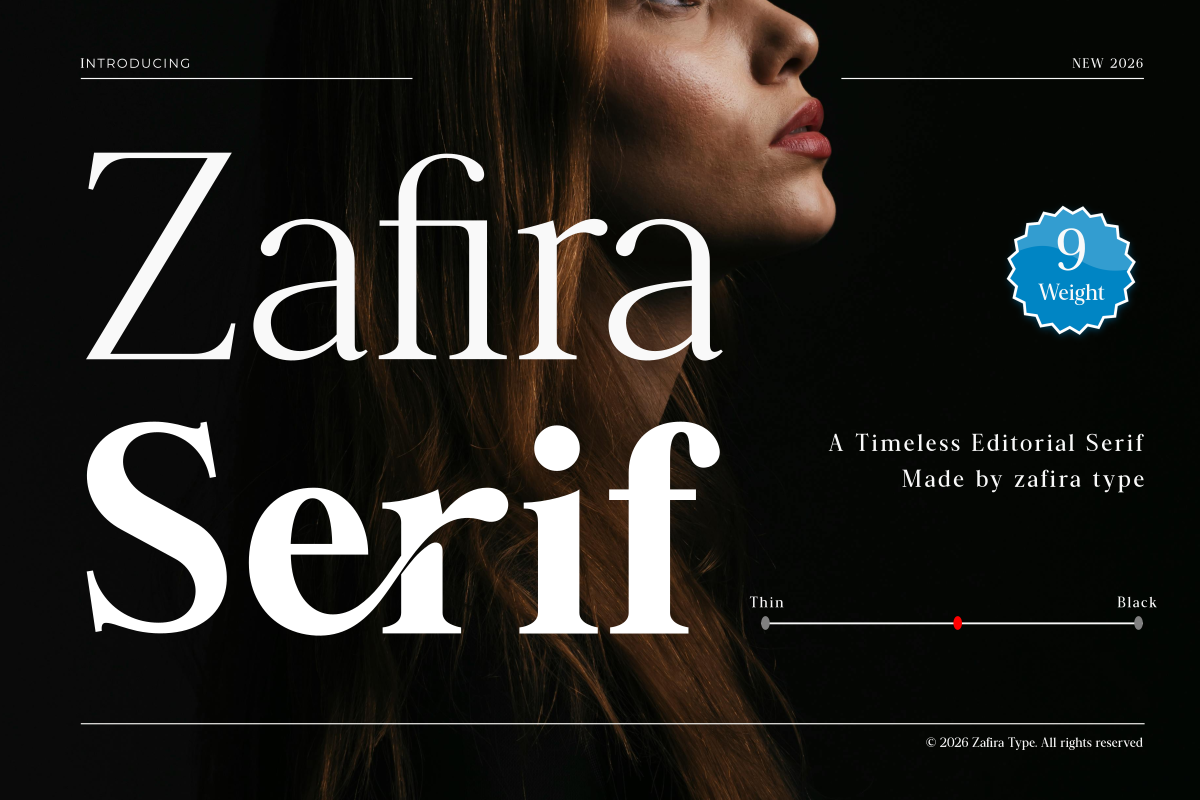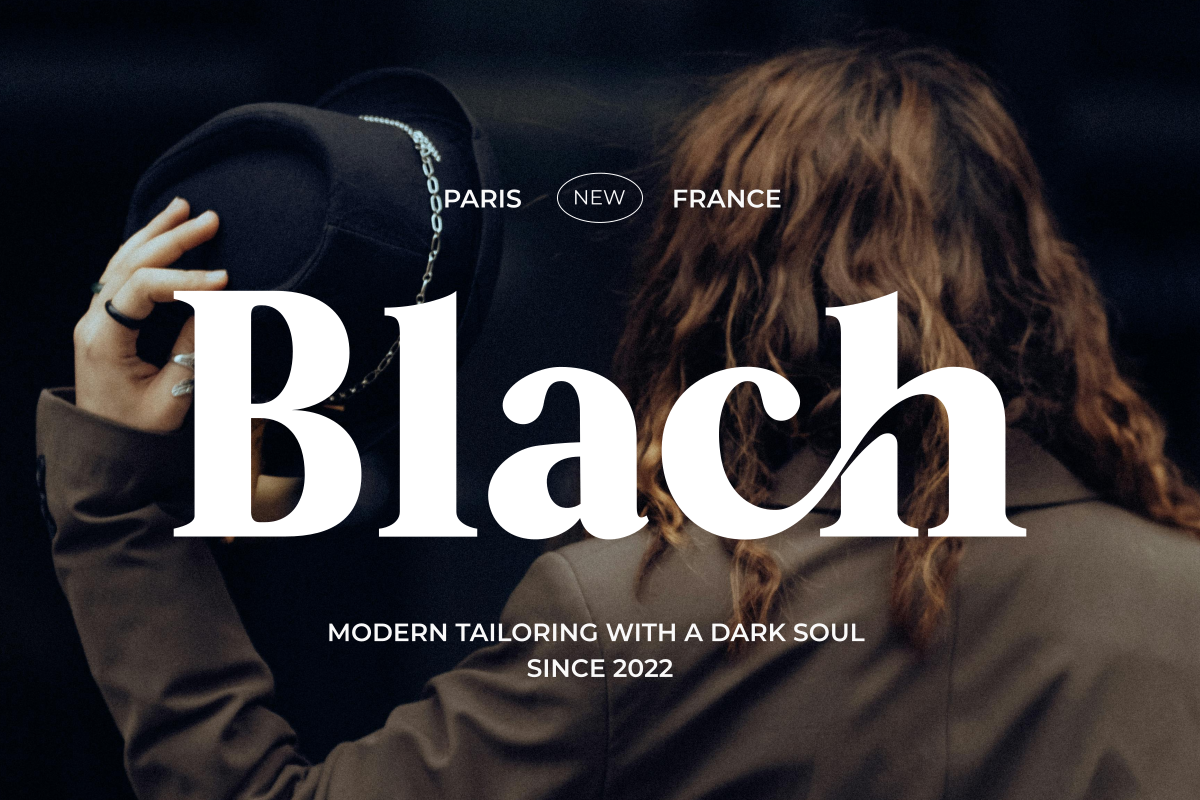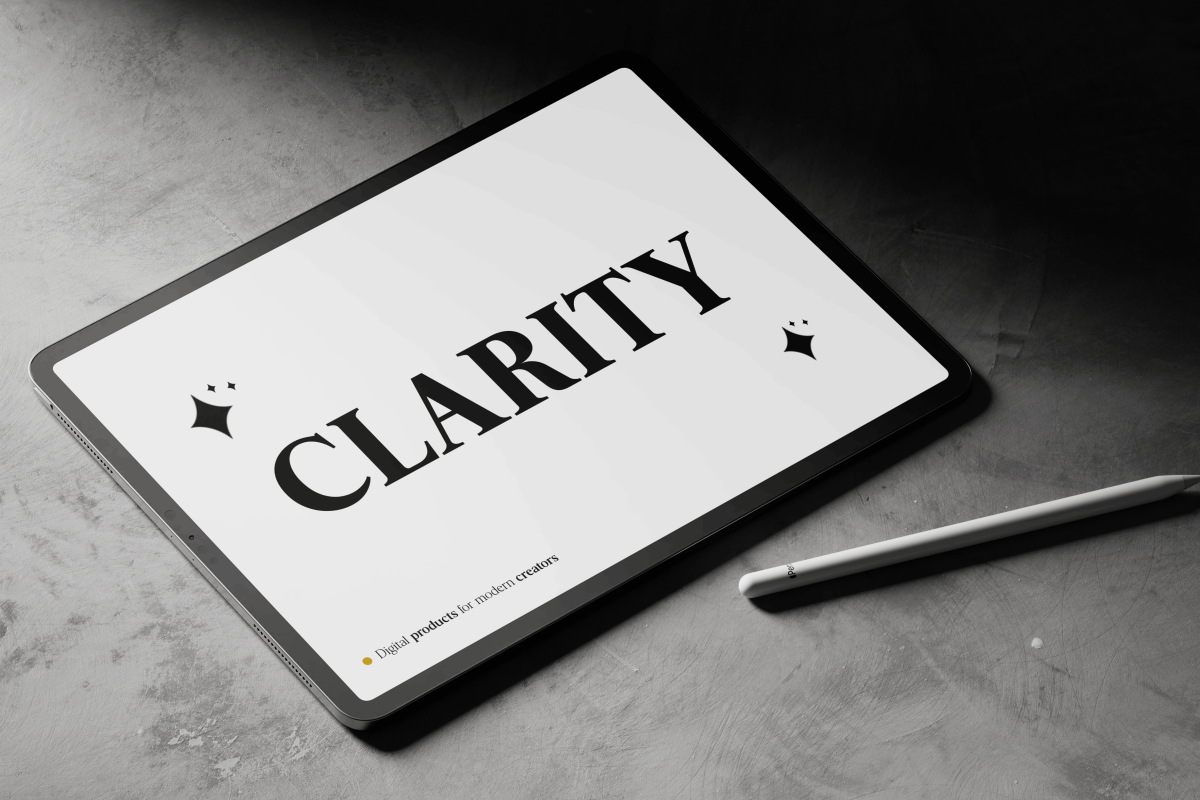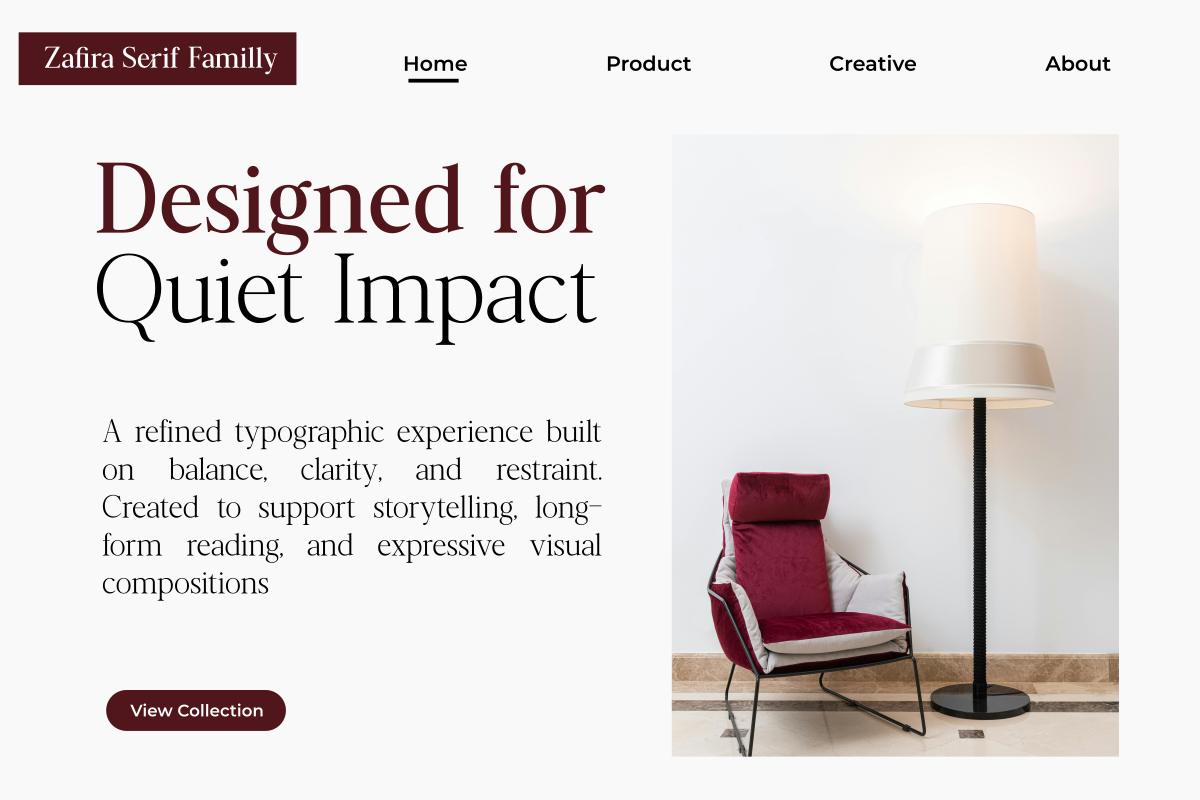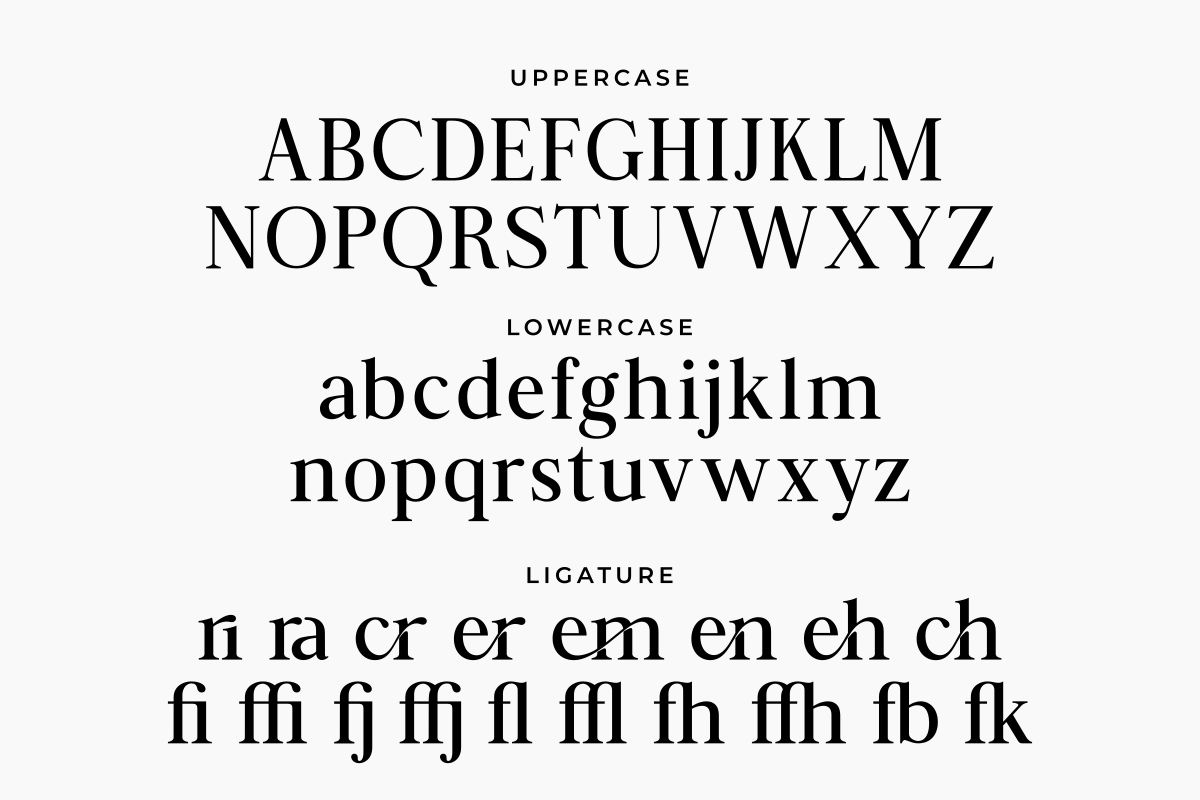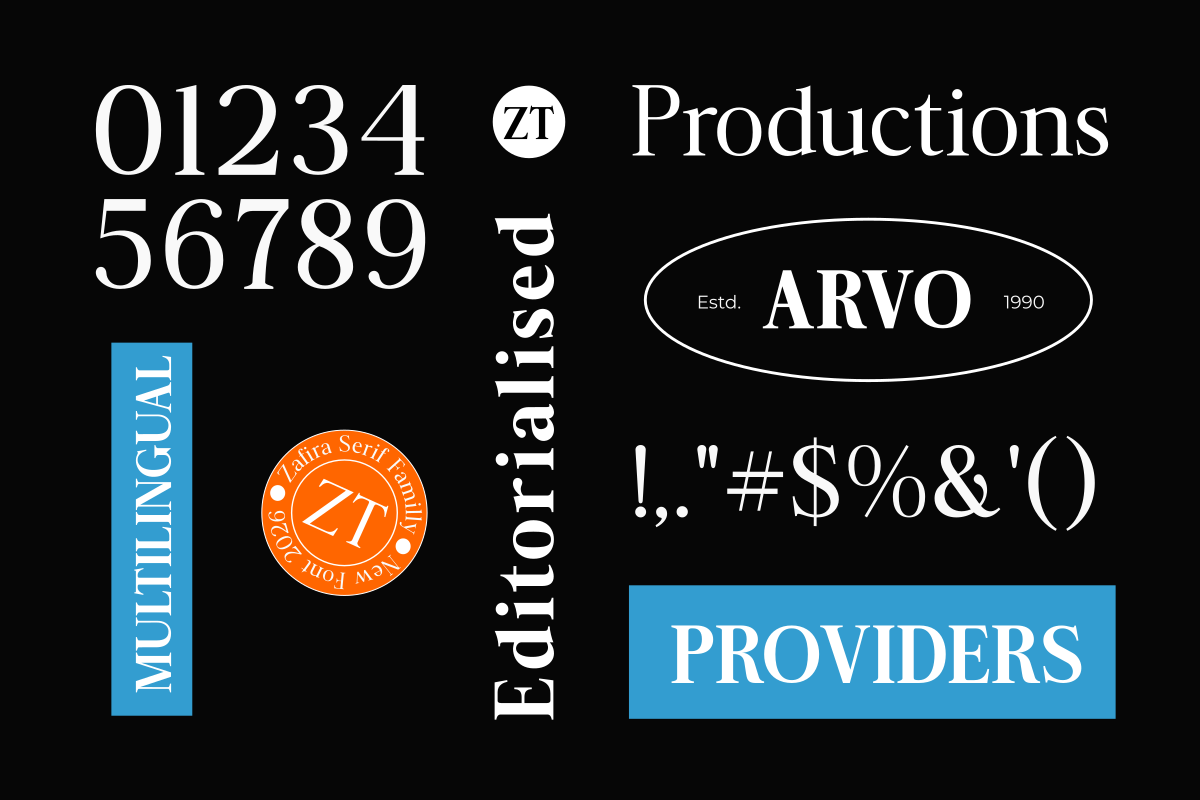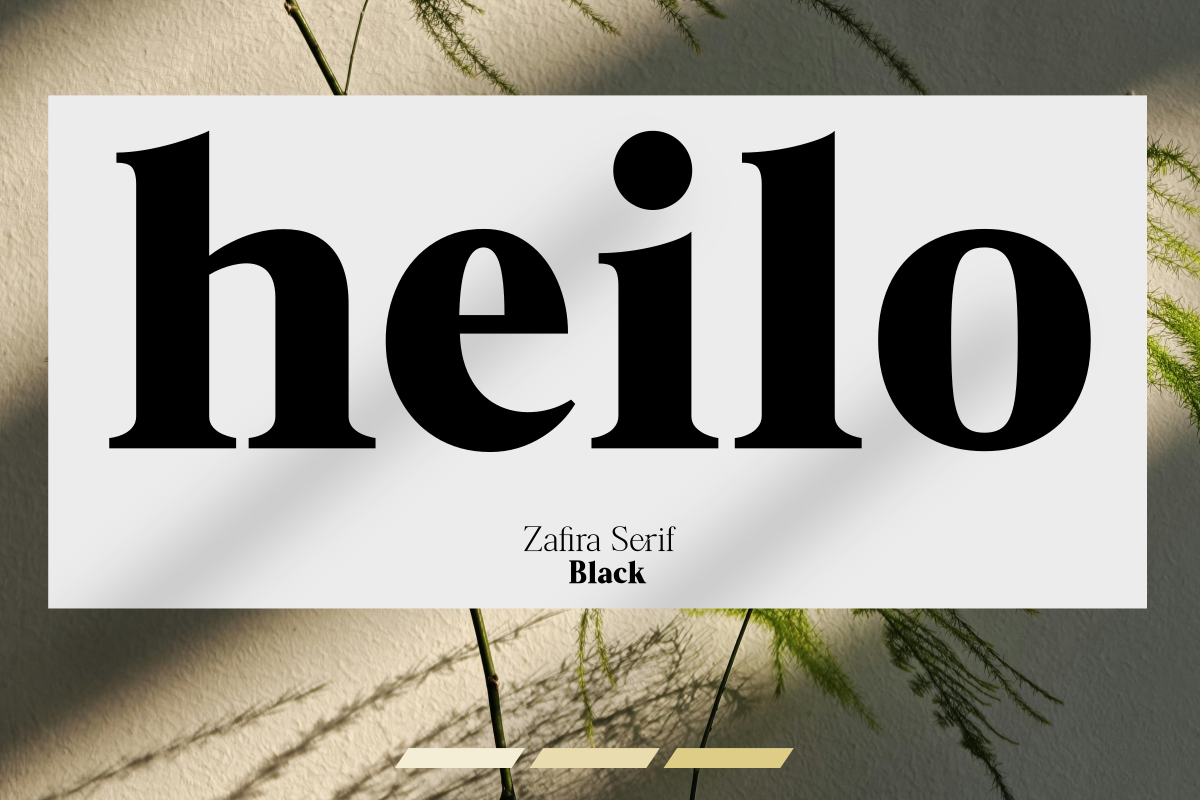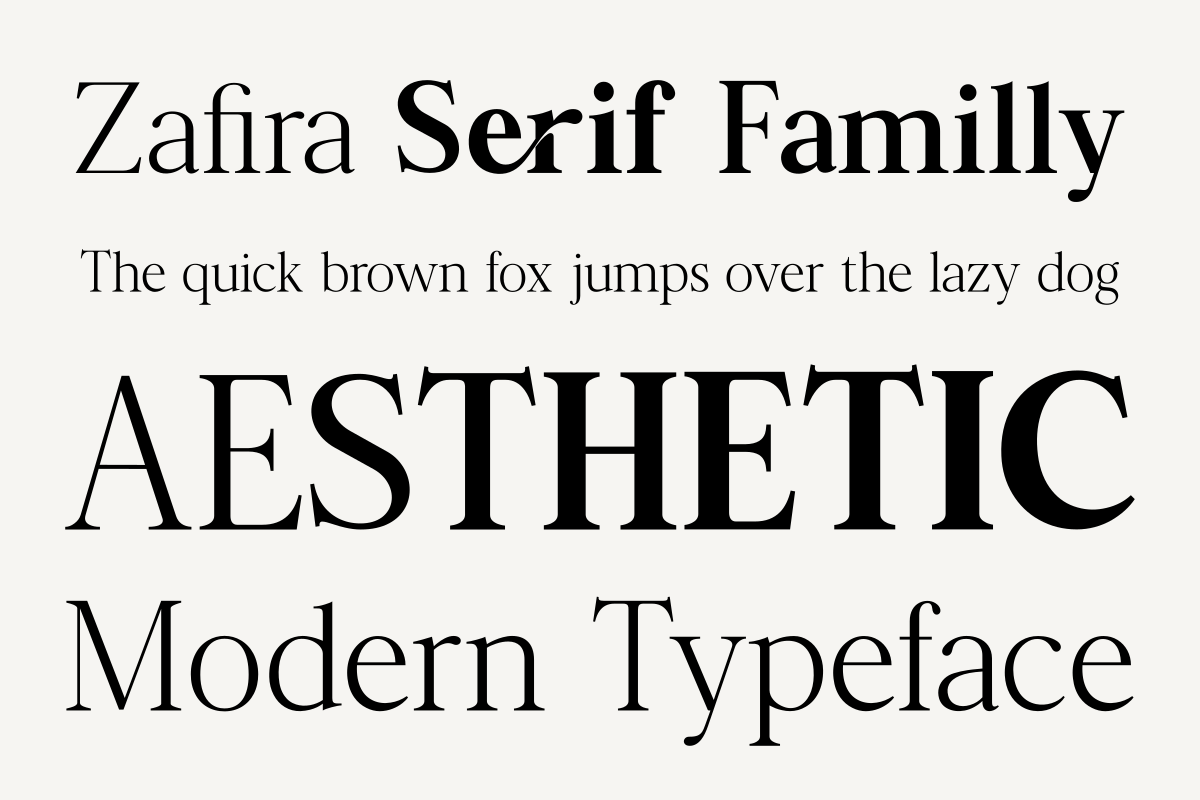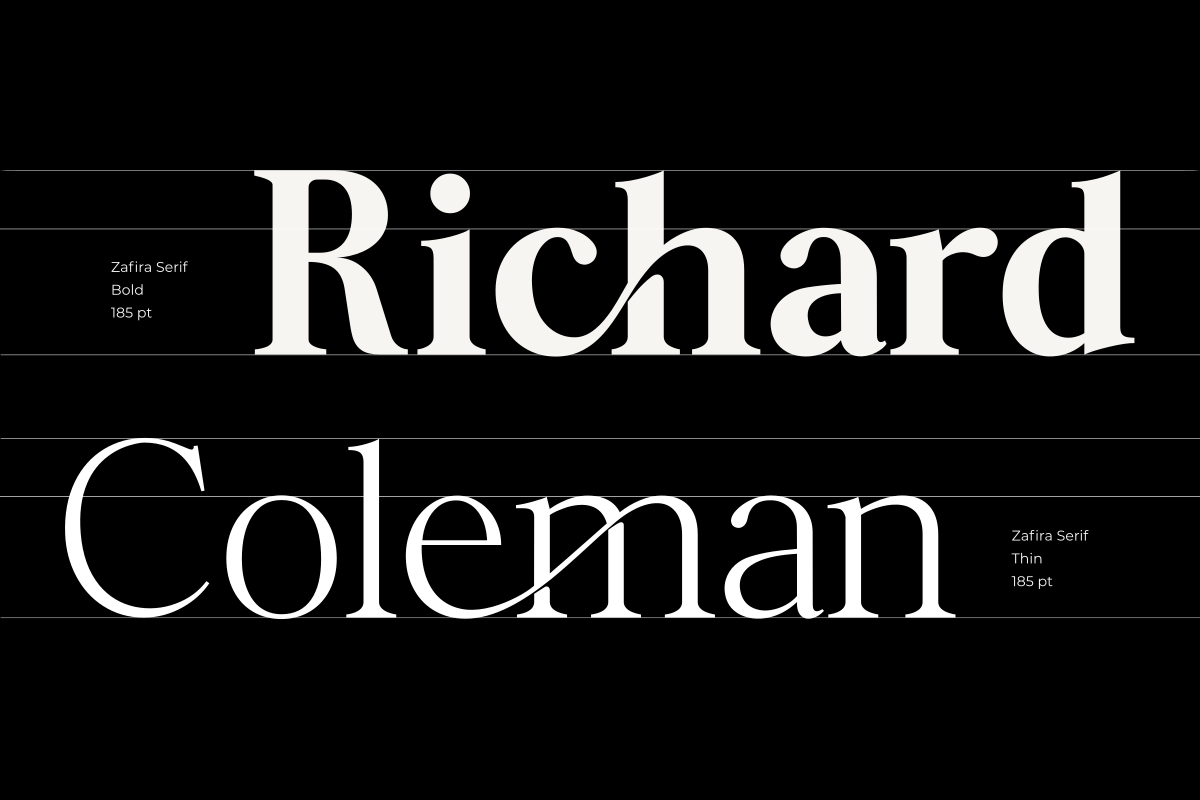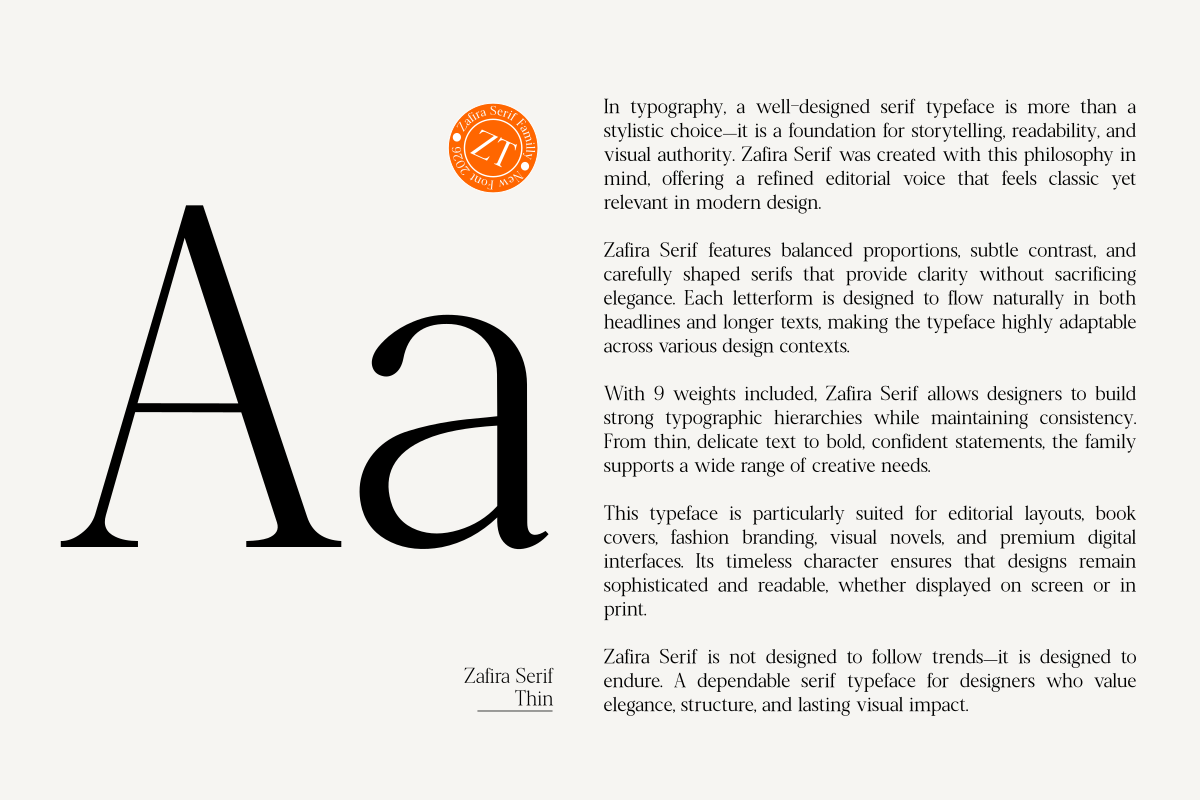
Zafira Serif
Zafira Serif is a versatile serif typeface featuring 9 carefully crafted weights, designed to deliver flexibility and consistency across a wide range of design needs.
From thin and elegant strokes to strong and bold forms, each weight is balanced to maintain clarity, harmony, and visual rhythm. The family is built on classic serif principles with a modern approach, making it suitable for both contemporary and traditional projects.
Zafira Serif works exceptionally well for branding, editorial layouts, headlines, logos, packaging, and long-form text, both in print and digital environments. Its wide weight range allows designers to create clear hierarchy and expressive typography within a single type family.